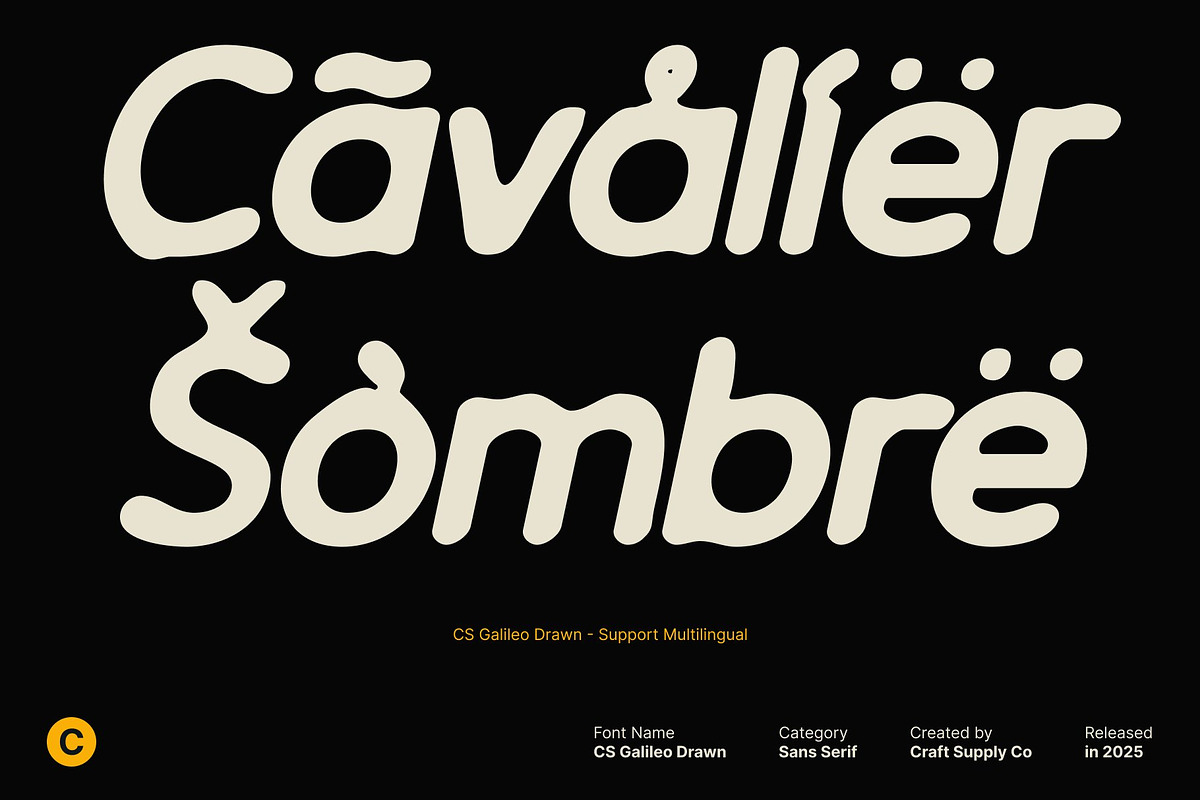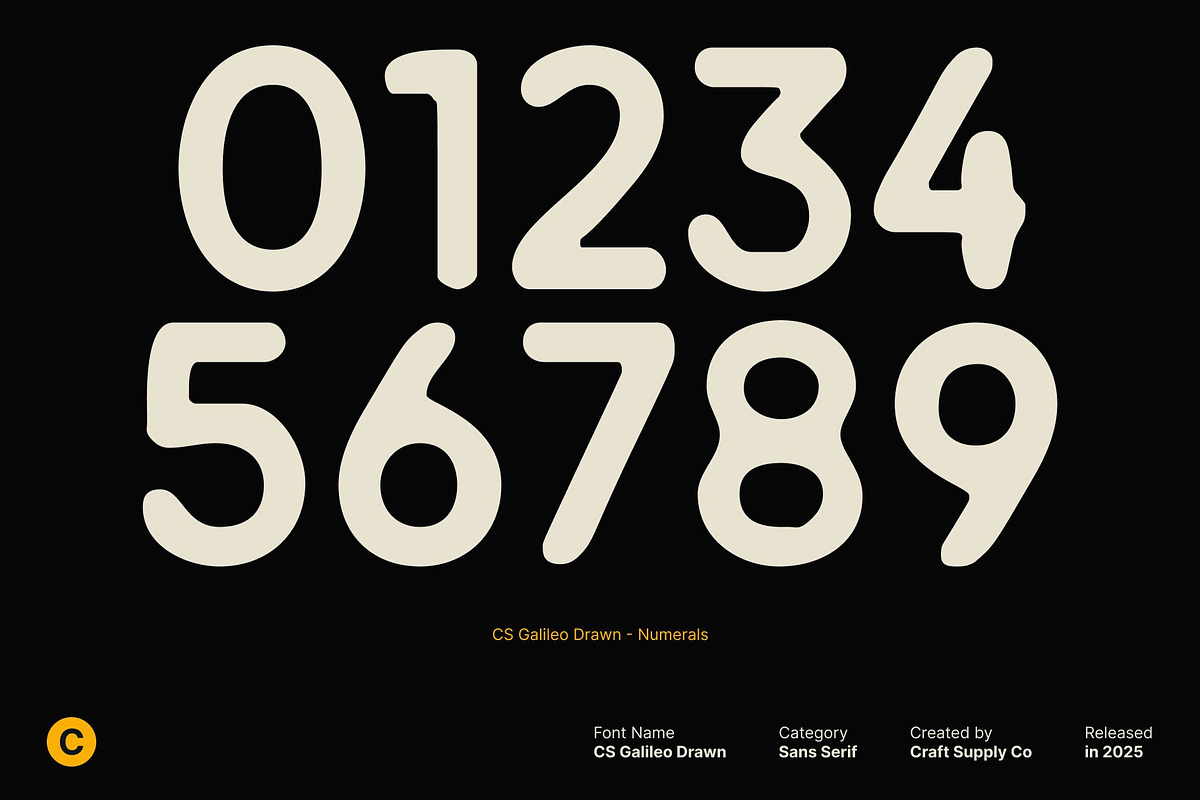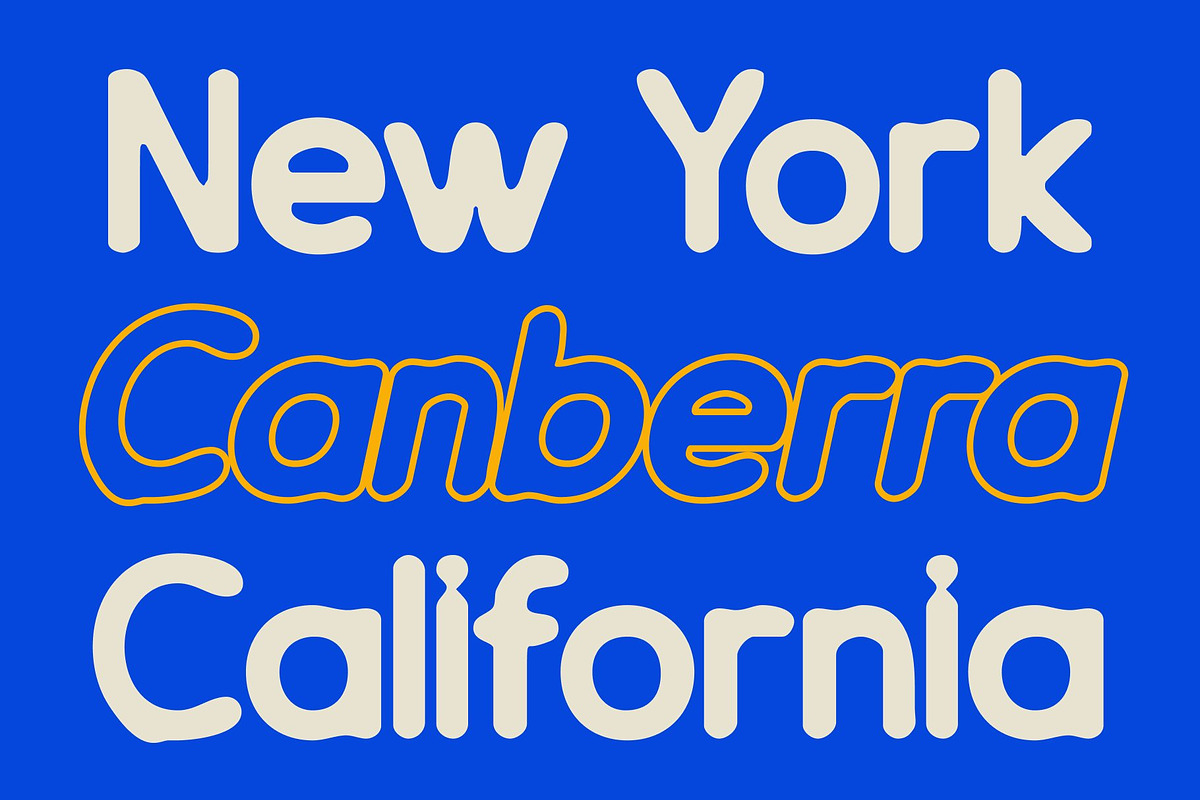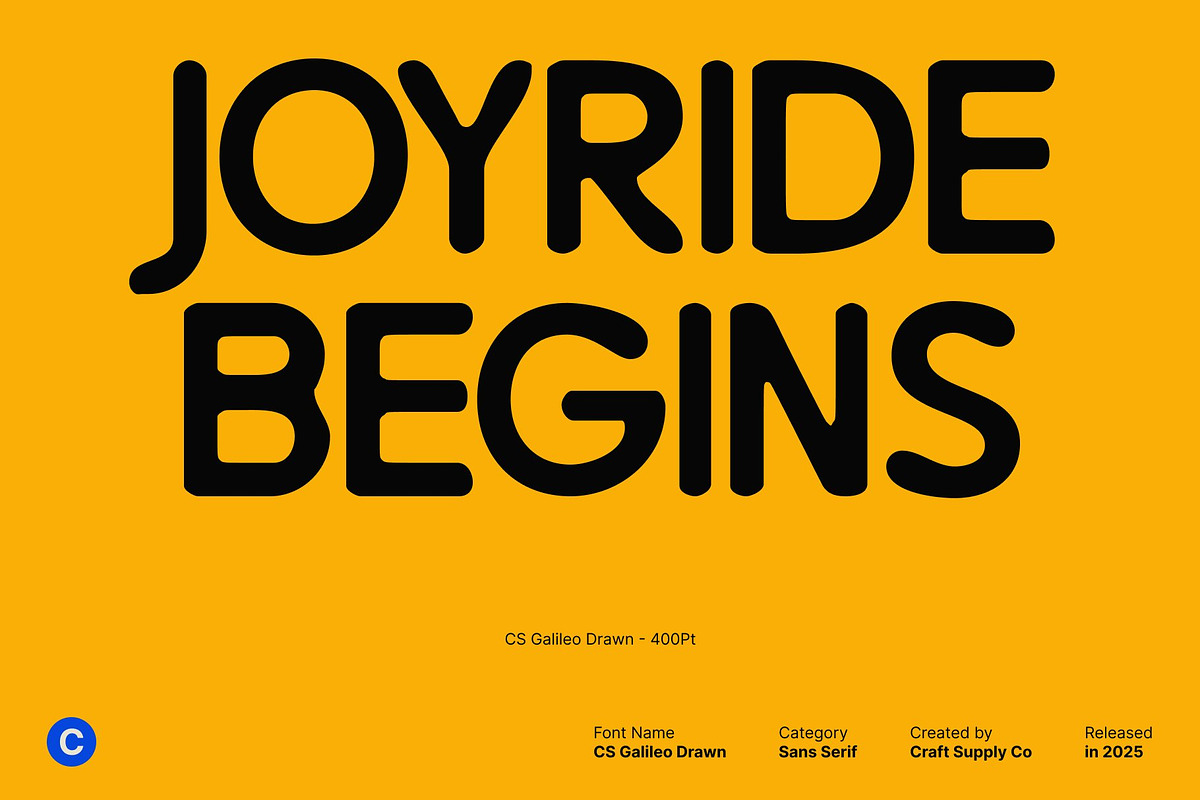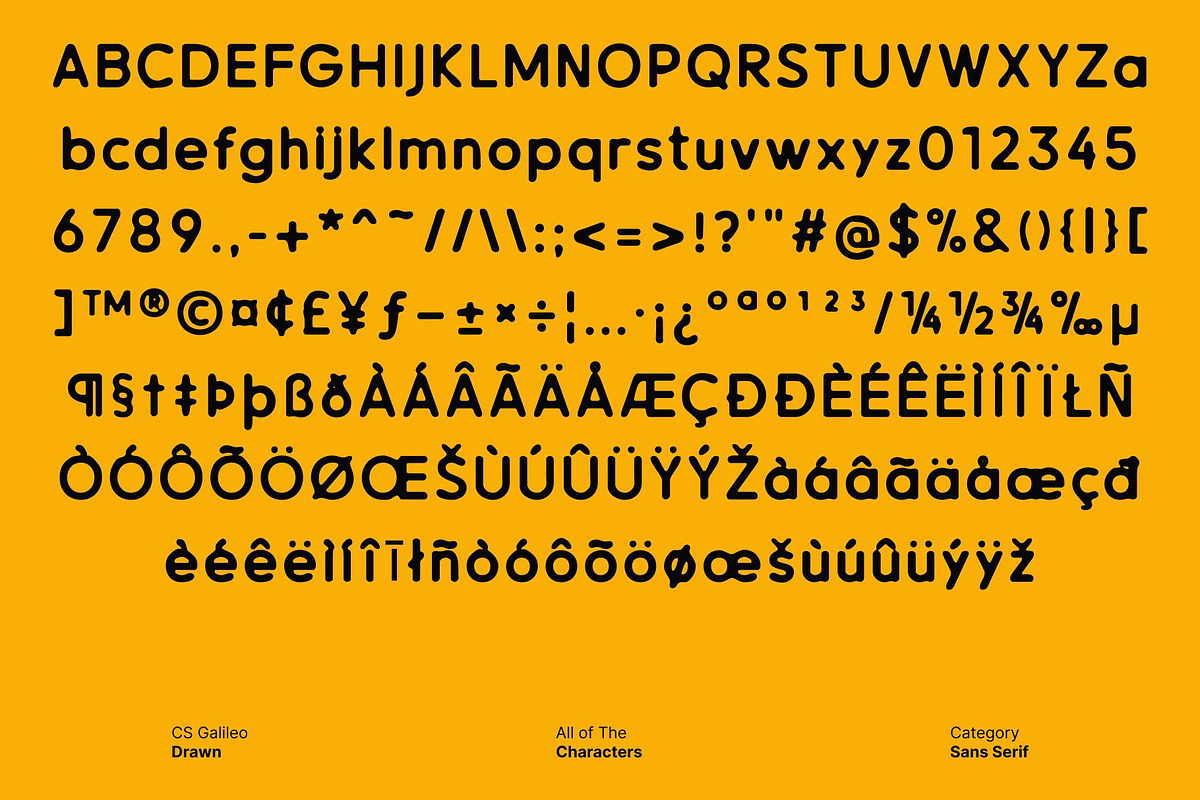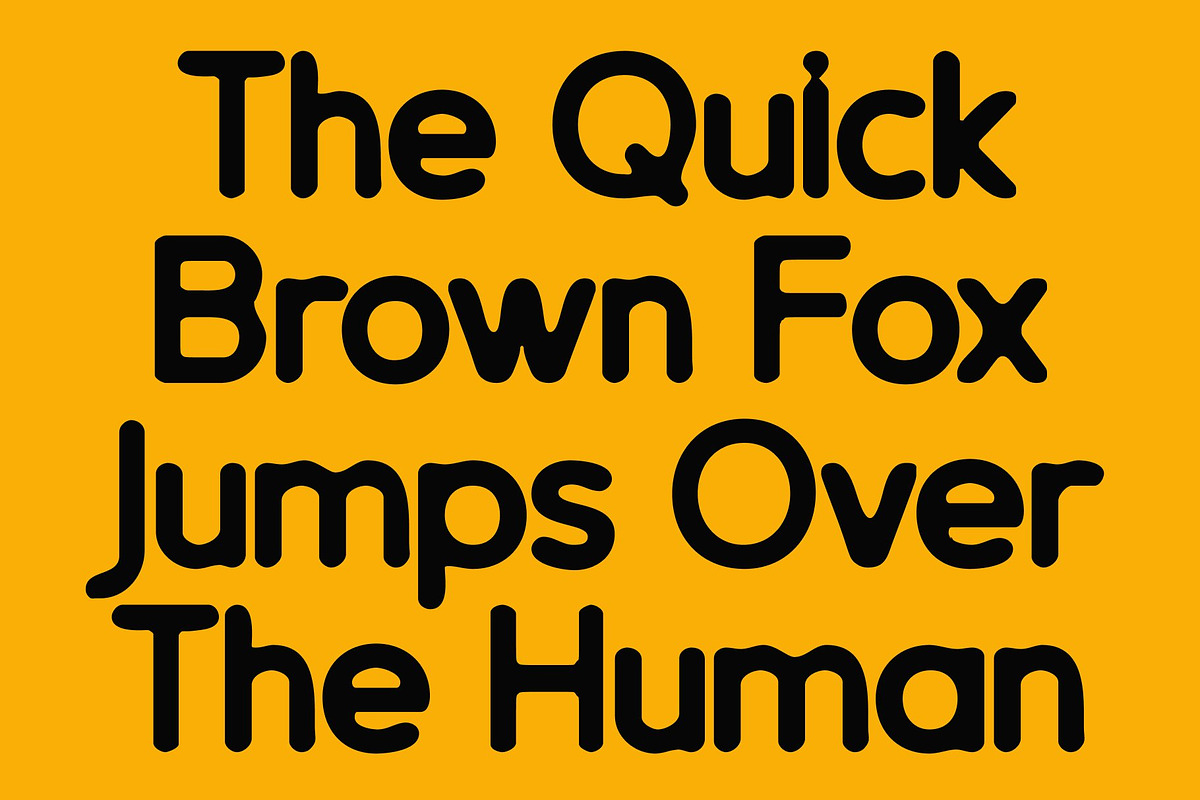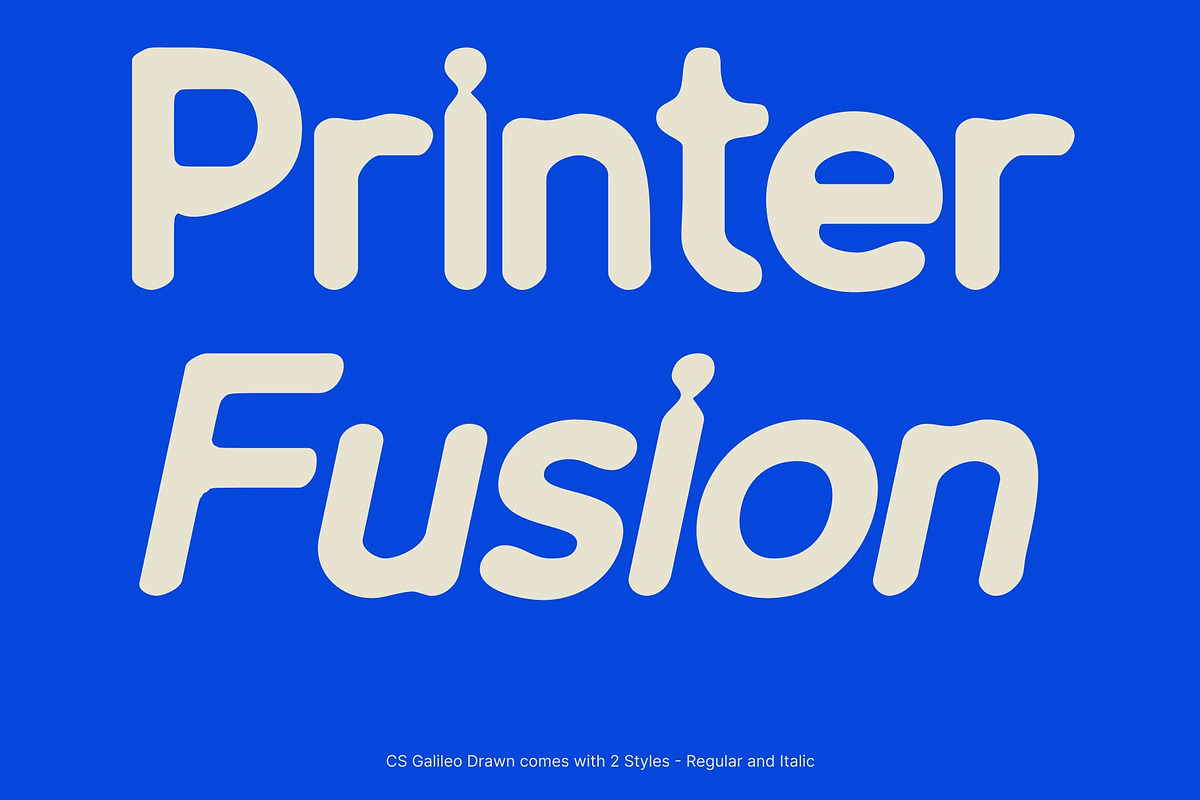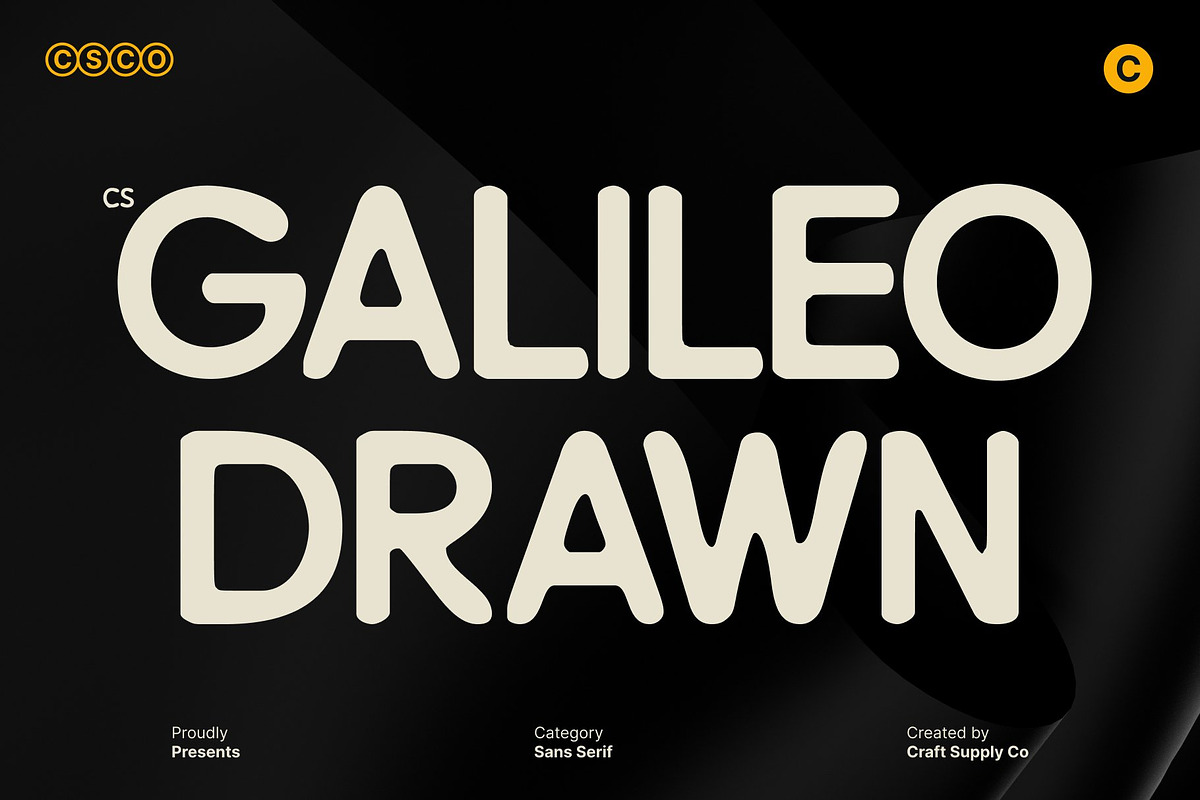
CS Galileo Drawn
CS Galileo Drawn – Modern Sans Serif with Clean Geometric Precision
Modern Simplicity with Balanced Structure This is a modern sans serif font that combines minimalist precision, clean lines, and geometric shapes into a cohesive, versatile design. The drawn effect introduces subtle handcrafted details, giving the font an artistic touch while maintaining its professional, contemporary appeal. Its well-proportioned letterforms convey clarity, balance, and visual harmony.
Versatile and Readable by Design Engineered with firm yet balanced proportions, ensures excellent legibility across print and digital formats. The geometric construction enhances readability while the drawn effect adds character, making it ideal for projects that require both clarity and a distinctive personality.
Perfect for Corporate and Creative Uses This font adapts seamlessly to brand identities, editorial layouts, corporate presentations, and more. Its neutral, modern tone supports formal, minimalist, or innovative designs without overpowering the overall visual direction.
Efficiency Meets Modern Style Blending clean design with subtle artistic flair, This font is ideal for tech companies, startups, digital platforms, and professional branding. It serves as a reliable typographic foundation, offering both functionality and contemporary aesthetic elegance.
- CS Galileo Drawn Regular
- CS Galileo Drawn Italic